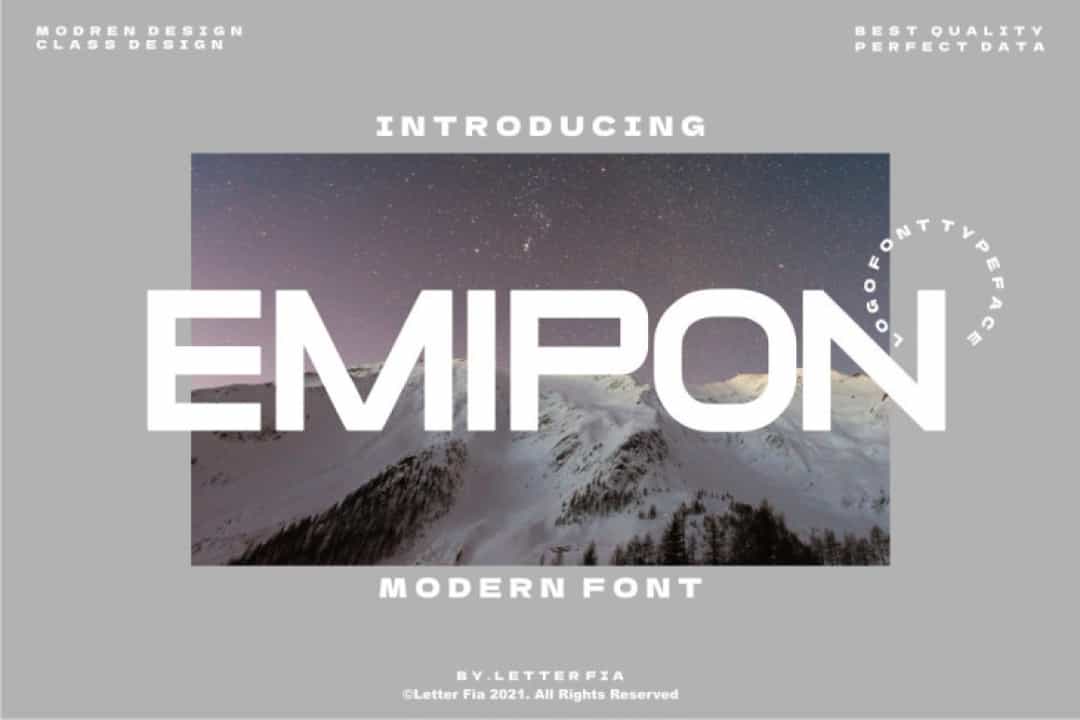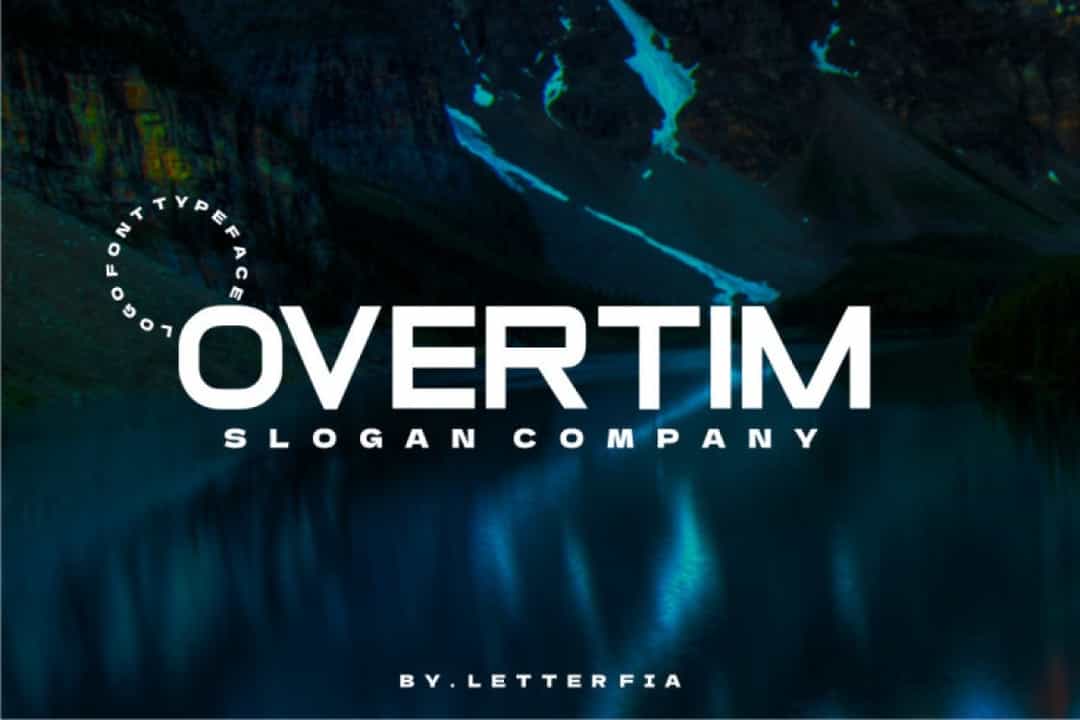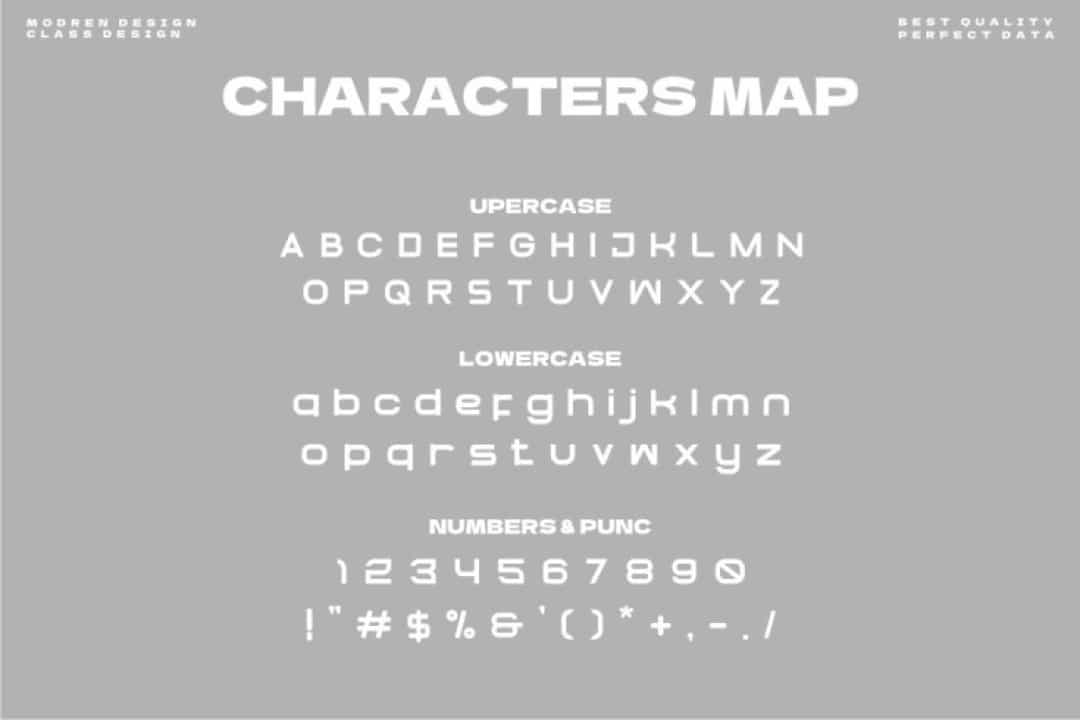
Discover Emipon Font, part of the Sans Serif Display Logos collection—a versatile and unique font perfect for adding a personal touch to your projects. Download it for free and enjoy crafting designs with style, from invitations to social media posts. This font is available exclusively for personal use, giving you the freedom to create without limits. Unlock your creativity with Emipon Font today!
Emipon Bold Sans Serif Font is an elegant display logo typeface that will spark creativity for your designs. Use this font in the creation of projects and discover its many possibilities!